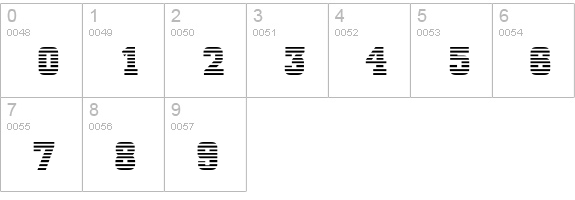
MeninBlue Font Details
MeninBlue is a modern and sleek font that exudes confidence and sophistication. Designed with versatility in mind, this font is perfect for any project requiring a touch of elegance and professionalism. With its clean lines and bold strokes, MeninBlue commands attention and makes a bold statement. Whether used for headlines, logos, or body text, this font effortlessly captures the essence of modern design. One of the best things about MeninBlue is that it is absolutely free to download! You can easily get your hands on this stunning font by visiting FontsMarket.com, where it is freely available for instant download. So why wait? Elevate your designs with MeninBlue and make a lasting impression. This font is sure to become a staple in your design toolkit, providing you with endless creative possibilities. Don't miss out on this incredible opportunity to enhance your projects with a font that is both stylish and free!